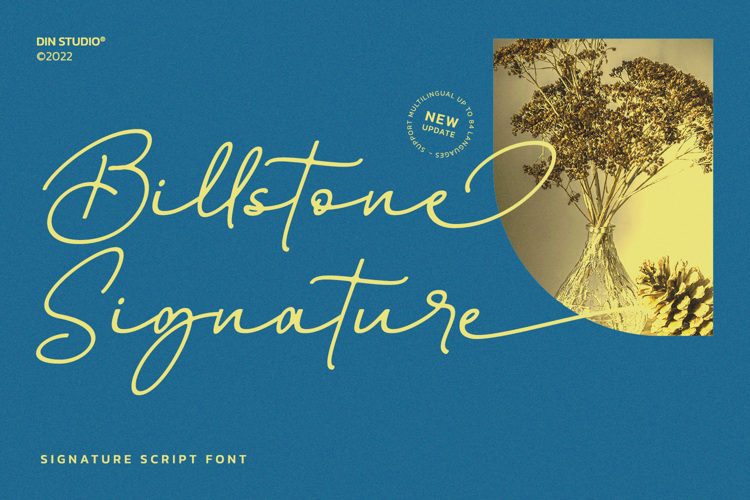
Billstone Signature Font
Billstone Signature is a modern signature font in relatively thick weight. Its main character relates to the name given which is similar to a signature in the interconnected letters. Besides, there is no prominent thick line differences on the letter. To improve legibility, use this font for bigger-sized texts.
Features include:
• Ligatures
• Stylistic Sets
• Swashes
• Multilingual Supports
• Numerals and Punctuations